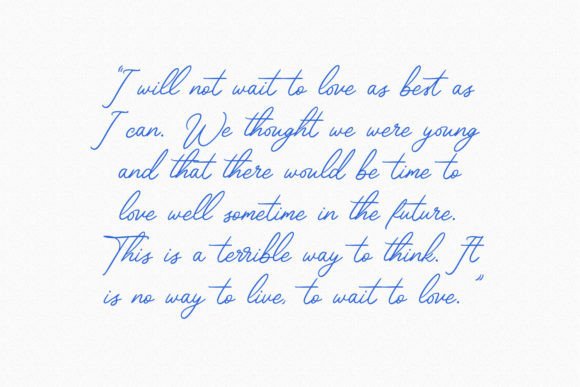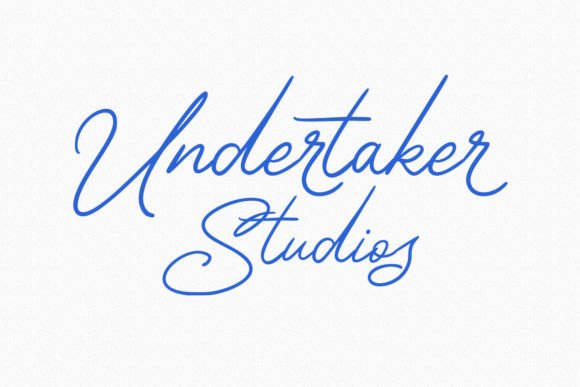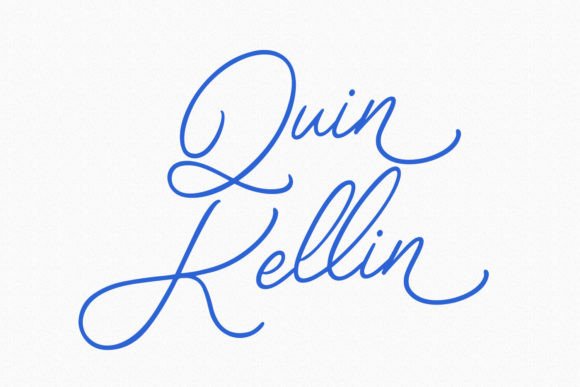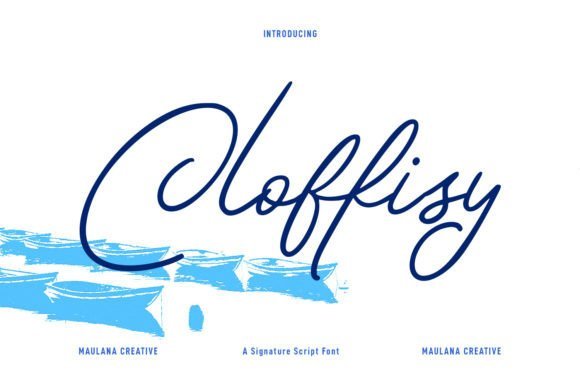
Introduction to Cloffisy Font
Cloffisy is a casual modern script font masterfully designed to become a true favorite.
Key Features of Cloffisy Font
Why Choose Cloffisy Font?
Cloffisy Font offers exceptional quality and versatility, making it a valuable addition to your design toolkit. Whether you’re creating for personal projects or commercial use, Cloffisy Font delivers professional results.